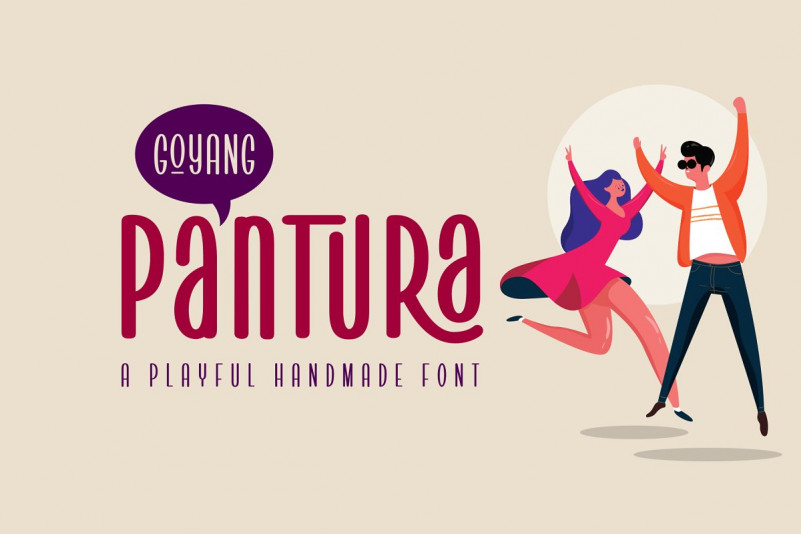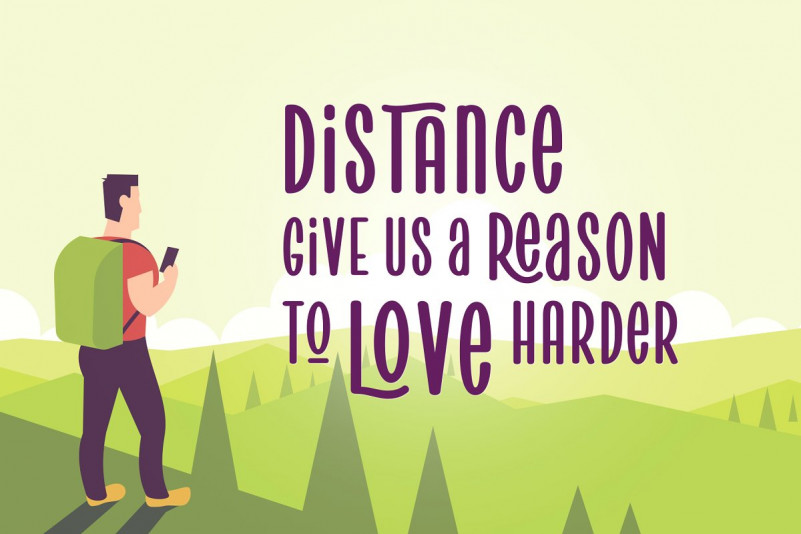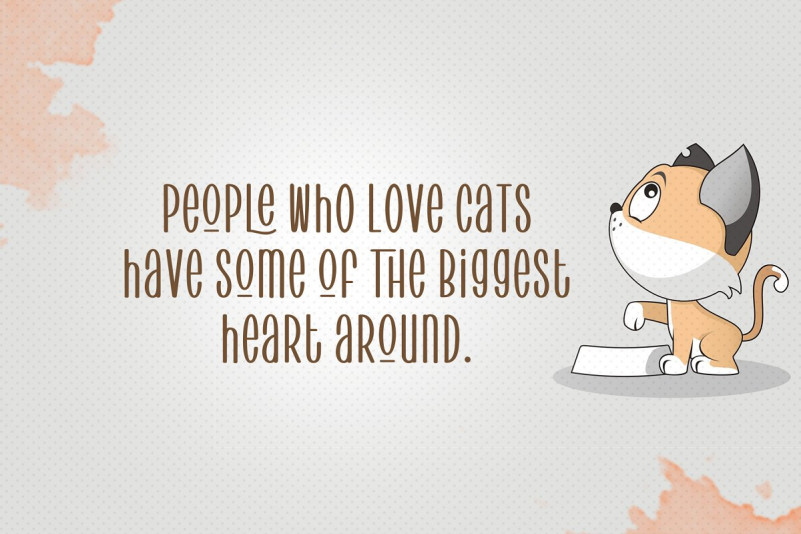
Pantura Font
Pantura is a simple yet playful handmade font. Based on casual handwriting, it makes your typographic design very personal. Several ligatures are added to make your design unique and attractive.
Pantura font is suitable for poster, invitation, label, logotype, packaging and more. Available in two styles, regular and bold. Also supports multi-language and PUA encoded.